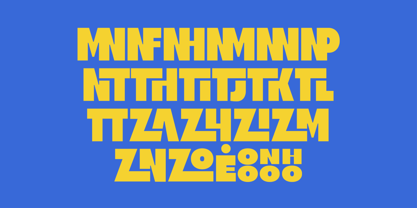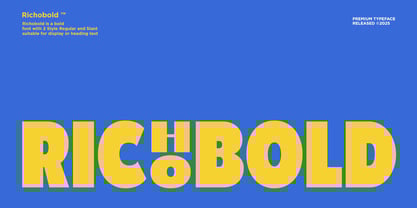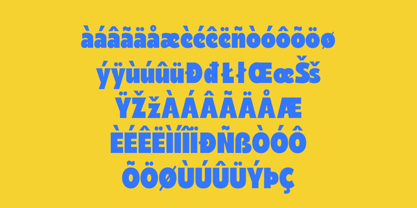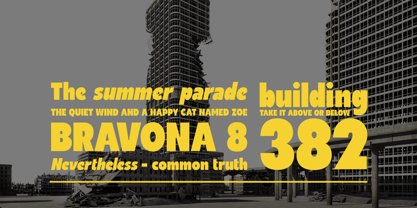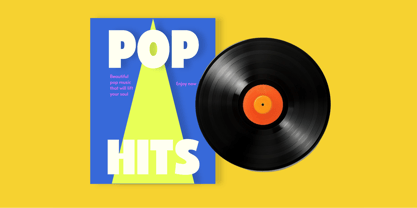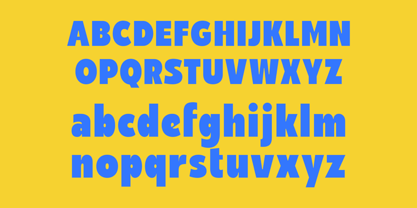
Richobold
by Glyphminds Studios
The Richobold Font Family was designed by Baliya Ibnu Bi Malkan and published by Glyphminds Studios. Richobold contains 2 styles and family package options. More about this family
Richobold Bold: Command Attention with Every Letter!   Tired of headlines that whisper? Richobold is a massive, high-impact display typeface designed to make your message impossible to ignore. Inspired by the chunky aesthetics of retro-futurism and the Y2K design revival, Richobold delivers a maximum-weight punch with a unique twist. Its solid, heavyweight structure is subtly disrupted by distinctive geometric in-line cutouts—like small, precise ricochets—giving it a dynamic, almost tech-focused energy.
Designers: Baliya Ibnu Bi Malkan
Foundry: Glyphminds Studios